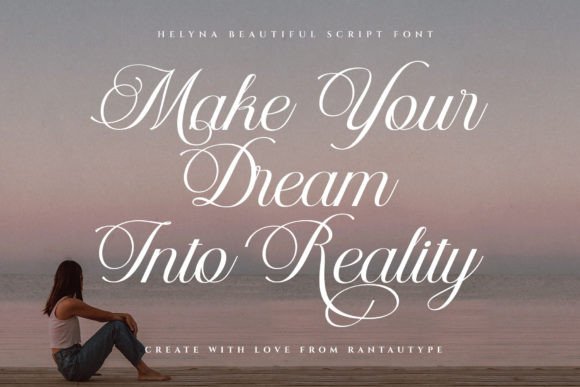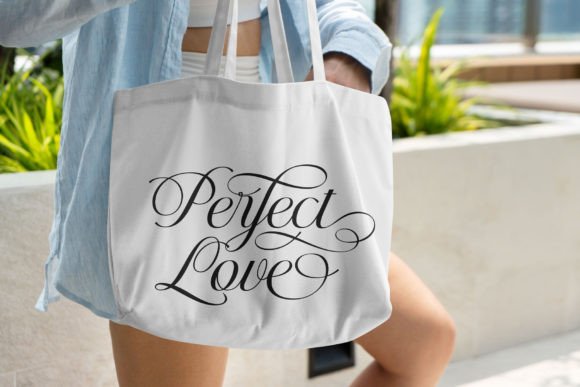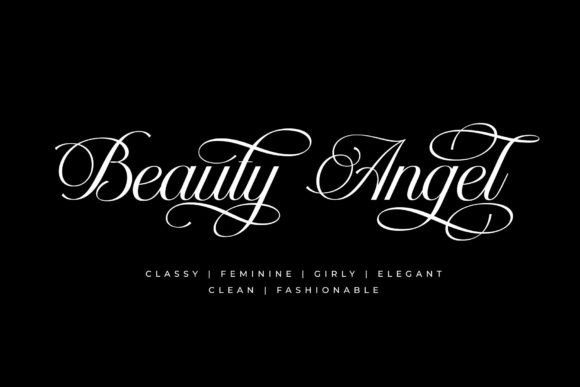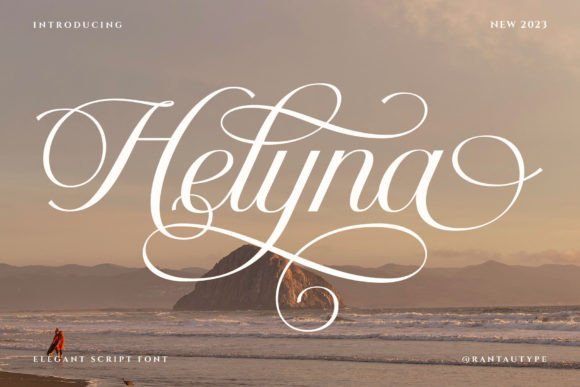
Introduction to Helyna Font
Helyna Elegant Script Font is a graceful and sophisticated typeface that brings a touch of class to your designs.
With its flowing cursive style, this font adds an elegant charm to invitations, cards, and other projects Helyna is perfect for those seeking a script font that exudes both refinement and simplicity.
Helyna Font offers exceptional quality and versatility, making it a valuable addition to your design toolkit. Whether you’re creating for personal projects or commercial use, Helyna Font delivers professional results.